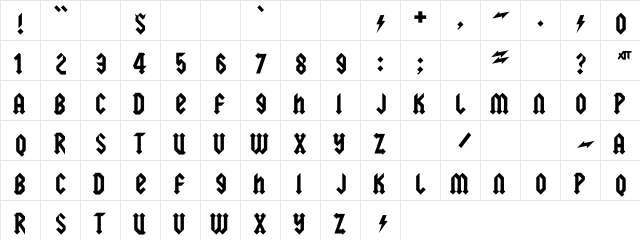
Squealer Heavy
Design Context for Squealer Typeface
Squealer is a composed and adaptable typeface that performs quietly and consistently across a wide range of design contexts.